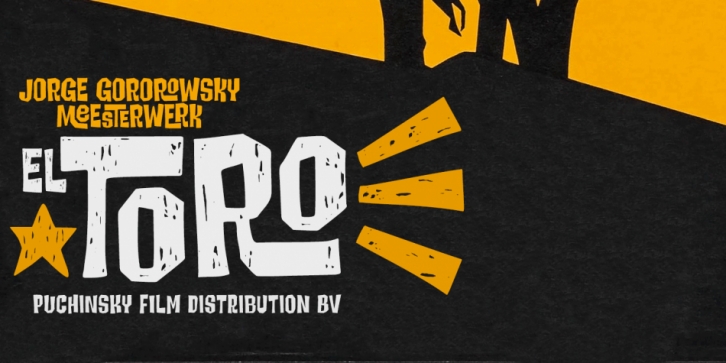
Manihot is a dingbat, display and kids font family. This typeface has three styles and was published by PintassilgoPrints.
Manihot is a cool display sans-serif font, loaded with interlocks, ligatures, and alternates to render your message in a nice eye-catching way, topped off with the usual je-ne-sais-quoi of PintassilgoPrints fonts.
The family brings rough and clean styles and yet a very useful dingbat font with dozens of tiny graphics to complement your words.
It’s up, witty, honest and just impossible to ignore. Give it a go!